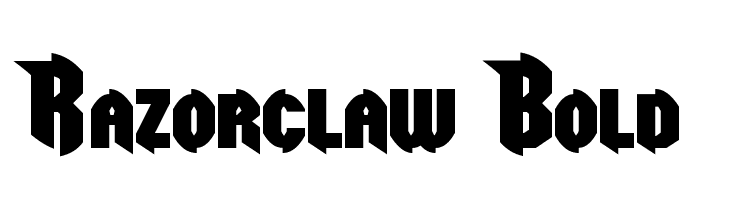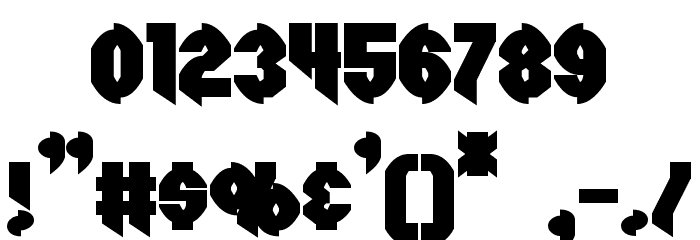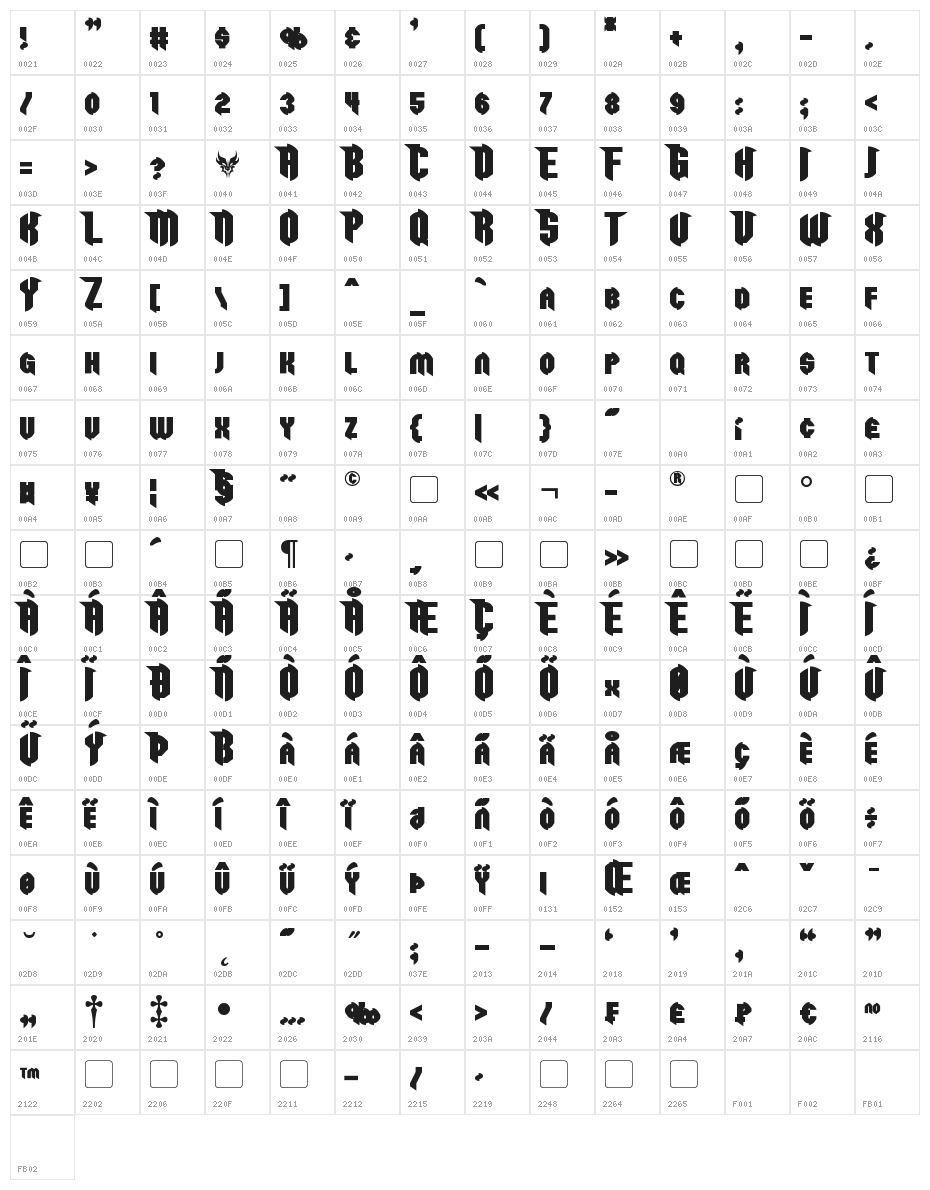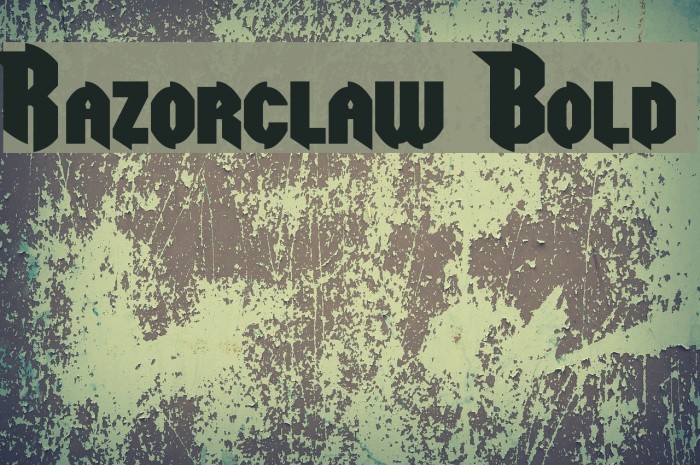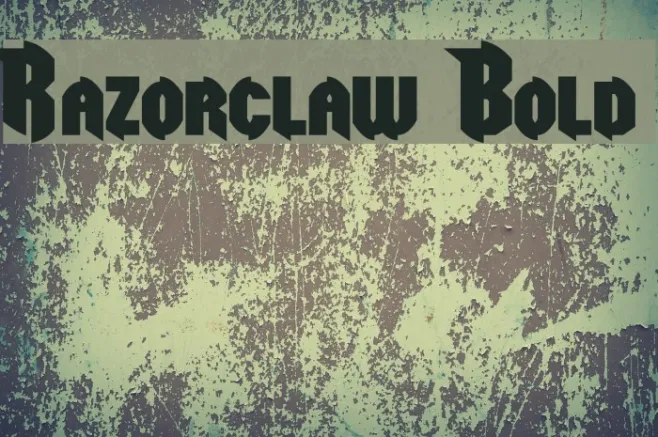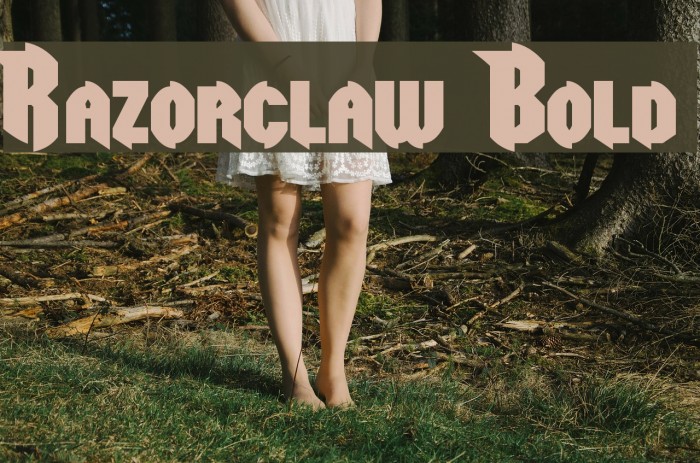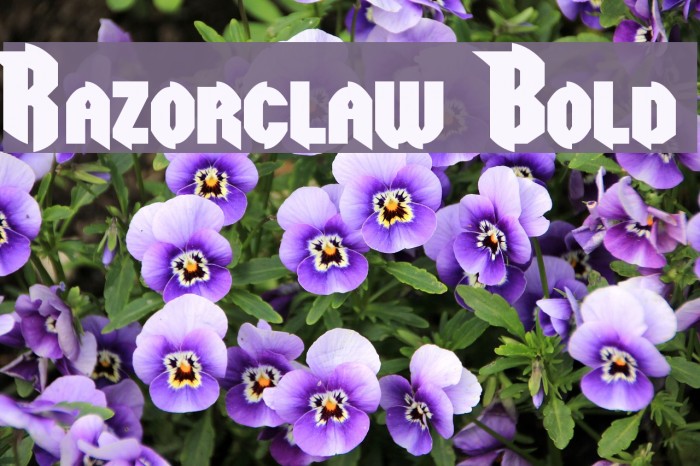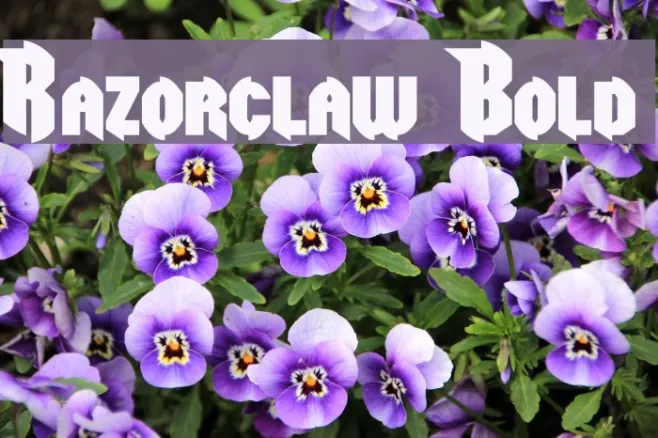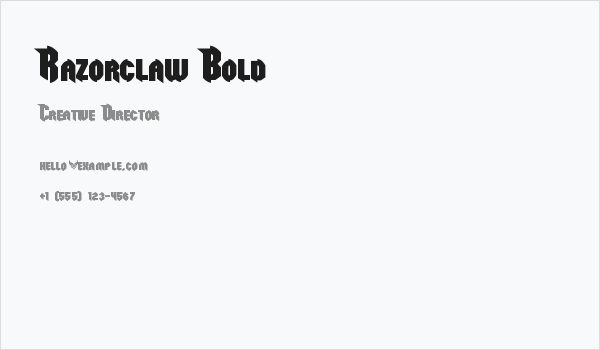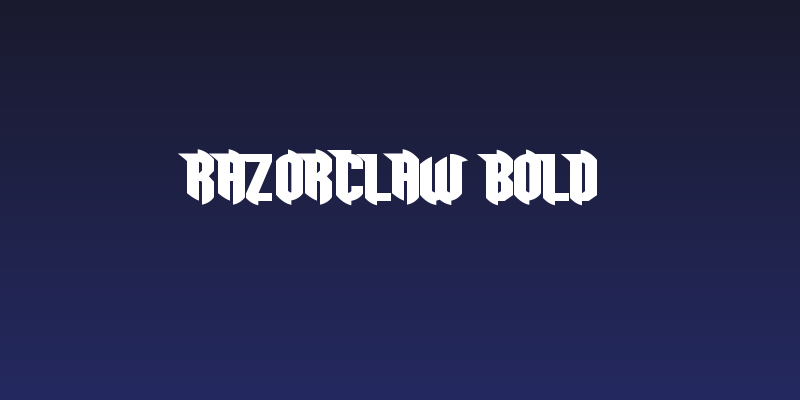
Razorclaw Bold Font
Razorclaw Bold Description
This font features a bold and aggressive design with sharp, angular edges and a heavy weight. The uppercase and lowercase letters maintain a consistent geometric style, creating a cohesive and striking appearance. The numerals and special characters follow the same bold and edgy aesthetic, making the font suitable for impactful and attention-grabbing designs. Its unique style is reminiscent of modern gothic or heavy metal themes, with a strong presence that commands attention.
| Overall Style | Modern Gothic |
| Proposed Projects | Ideal for music album covers, event posters, video game titles, and branding for edgy or alternative products. |